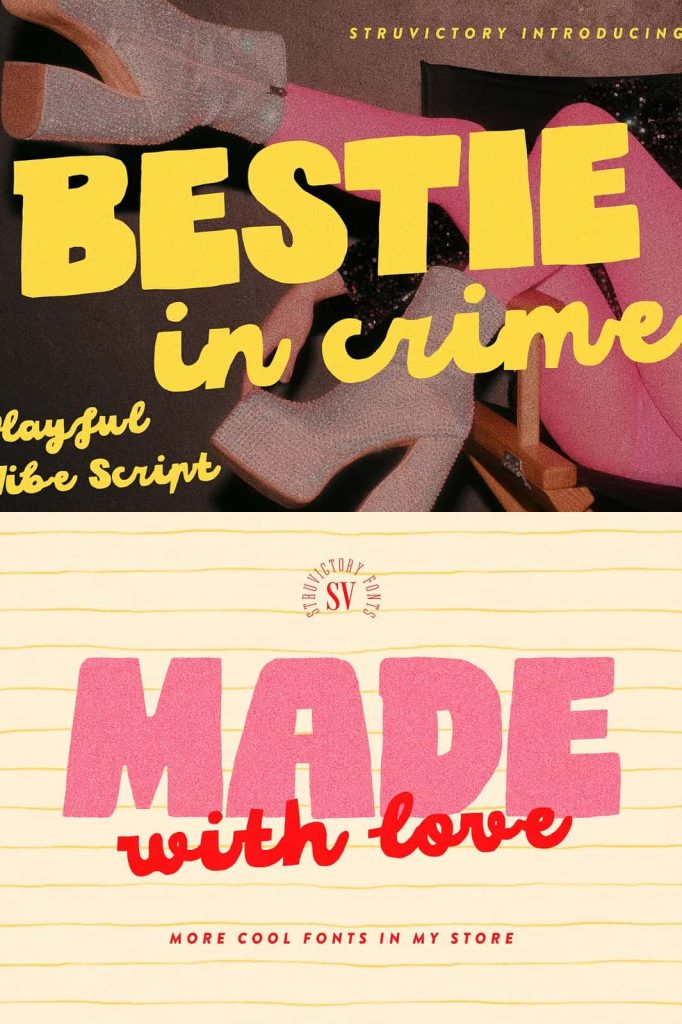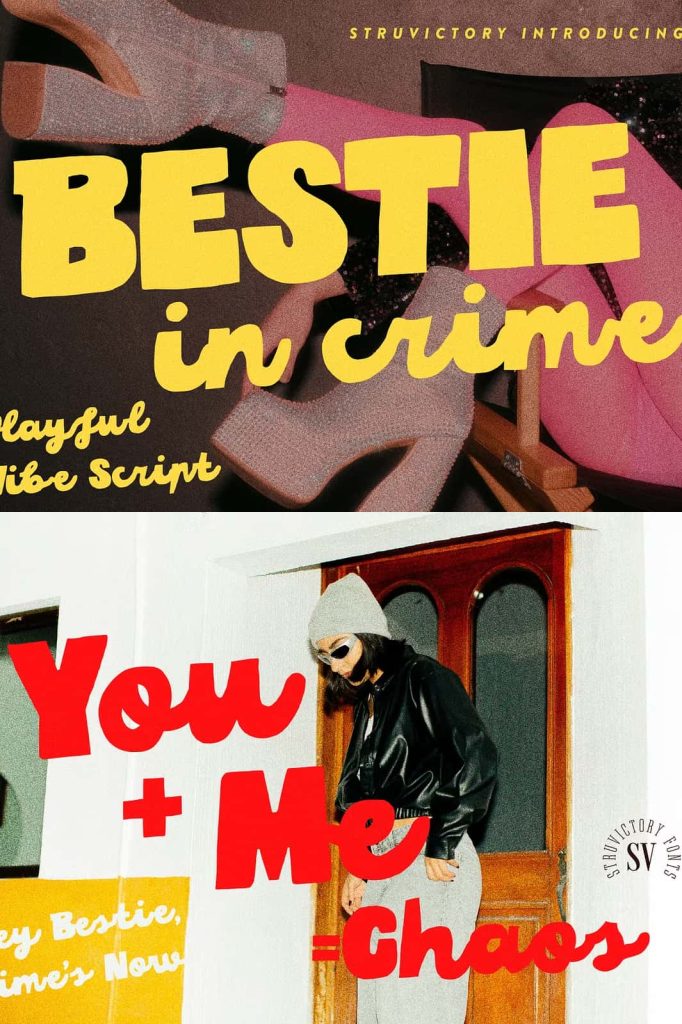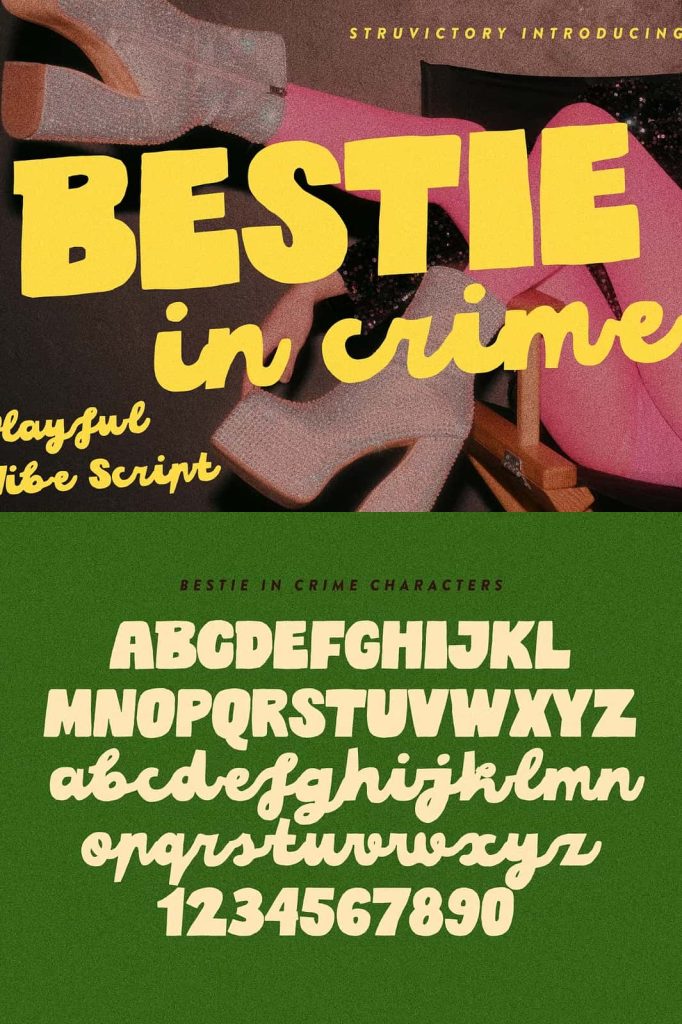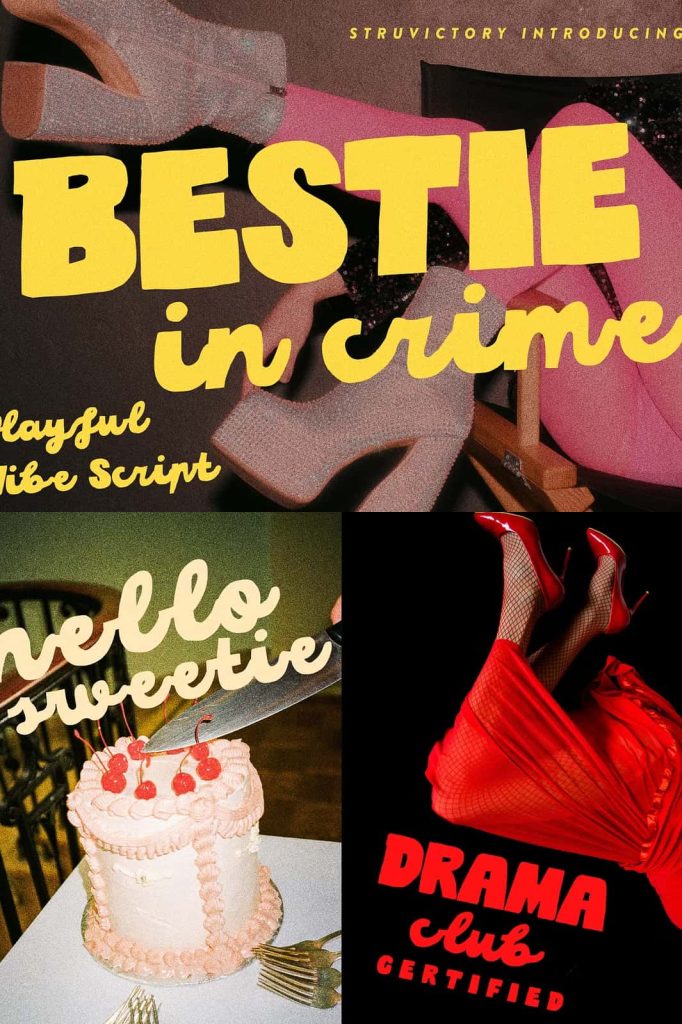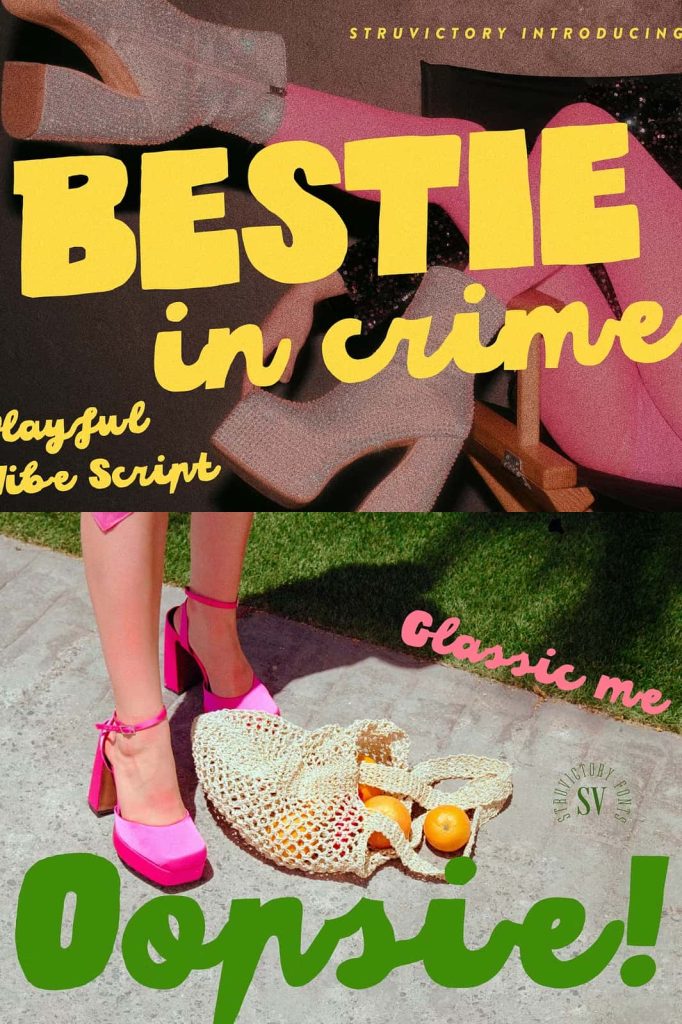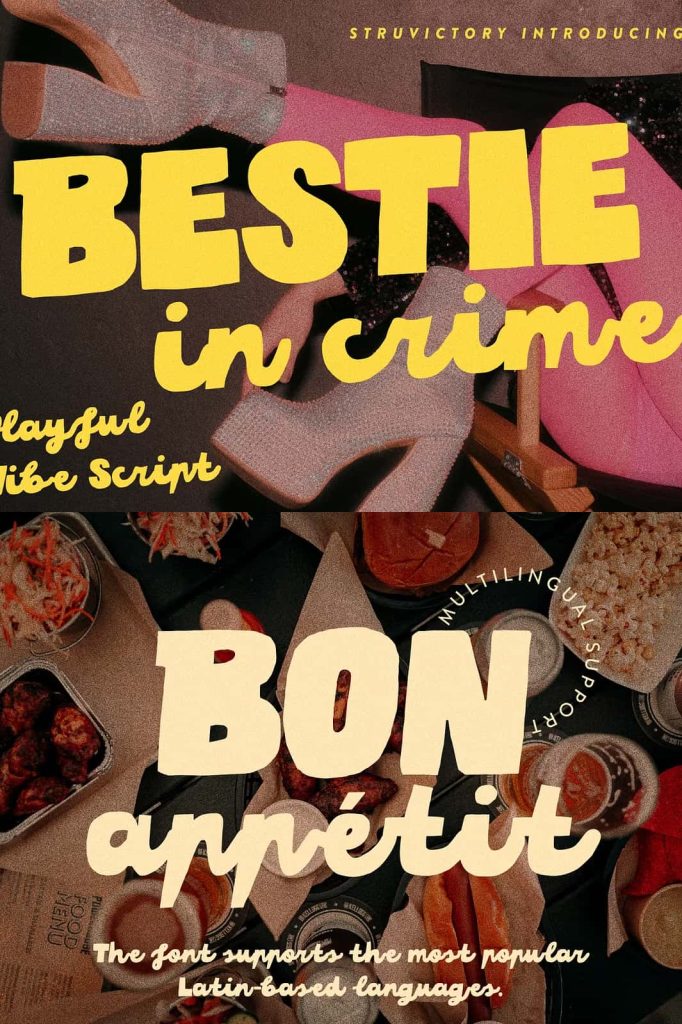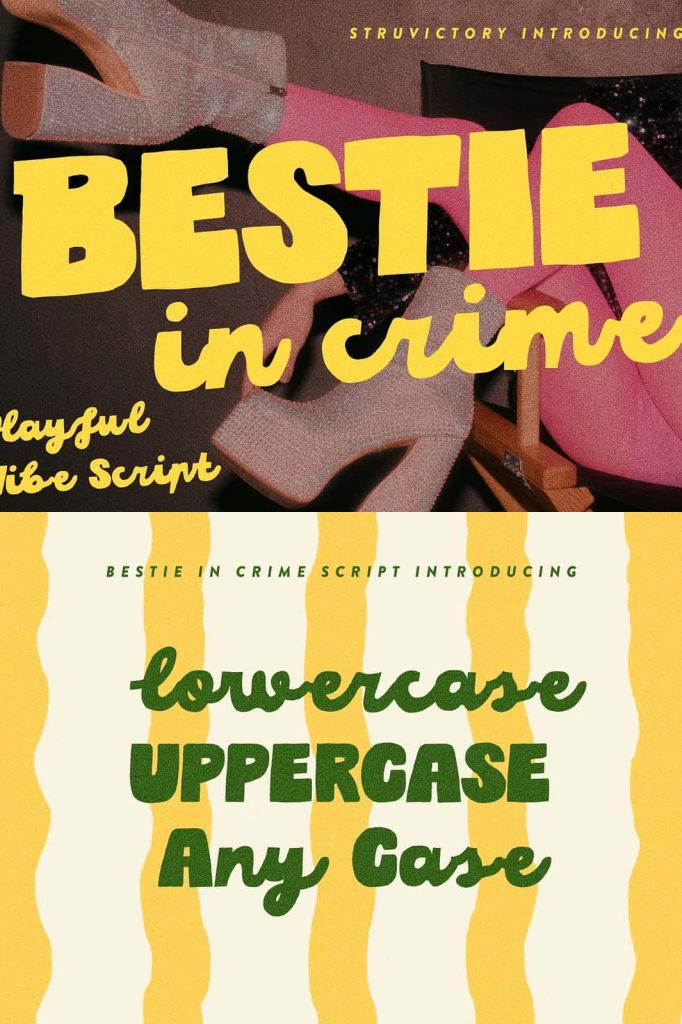
Bestie in Crime Playful Font Duo
A Bold Font Duo Built for Energy and Personality
Bestie in Crime is a bold and playful font duo designed to bring instant personality and movement to your typography. This typeface pairing combines a strong handwritten sans serif uppercase with a lively, flowing lowercase script, creating a dynamic contrast that feels energetic, expressive, and full of attitude. Together, the two styles work in harmony to produce designs that feel fun, confident, and visually engaging.
Rather than relying on a single typographic voice, Bestie in Crime thrives on contrast. The uppercase sans serif delivers structure and impact, while the script introduces motion and charm. This combination allows designers to build strong typographic hierarchies while maintaining a casual, friendly tone that instantly connects with audiences.
Handwritten Sans Serif Meets Flowing Script
The uppercase handwritten sans serif in Bestie in Crime features chunky forms and confident strokes that command attention. Its bold construction ensures readability while delivering a handcrafted feel that keeps designs approachable. This style works exceptionally well for headlines, titles, and key messaging where clarity and impact matter most.
The lowercase script adds a playful counterbalance with smooth curves and natural flow. Its lively movement softens the overall look, introducing warmth and personality into the composition. When used together, the two styles create a visual rhythm that feels spontaneous and expressive rather than rigid or predictable.
Designed to Create Contrast That Feels Natural
Bestie in Crime was designed to make mixing styles effortless. The sans serif and script complement each other through consistent proportions and thoughtful spacing. This allows designers to alternate between bold statements and expressive accents without disrupting visual harmony.
The result is typography that feels handcrafted yet cohesive. Designers can easily highlight keywords, emphasize emotions, or guide the viewer’s eye through playful contrast that feels intentional and well-balanced.
Perfect for Fun, Casual, and Eye-Catching Designs
Bestie in Crime excels in projects that require a fun and casual vibe. Its bold personality makes it ideal for cafe menus, where clarity and charm must work together to engage customers. The font duo also performs exceptionally well in poster designs, allowing messages to stand out in busy visual environments.
Event invitations benefit from the font’s playful tone, which helps set an energetic and welcoming mood. Whether promoting a party, pop-up, or community gathering, Bestie in Crime communicates excitement and personality through its expressive forms.
Made for Packaging, Merch, and Social Media
Bestie in Crime shines in product packaging and merchandise design. Its chunky letterforms and handwritten charm help products feel friendly, approachable, and memorable. This makes it especially effective for lifestyle goods, handmade products, and creative brands looking to stand out on shelves.
On social media, the font duo captures attention quickly. Its bold contrast and casual energy translate well to digital platforms where visuals must compete for attention. Designers can use Bestie in Crime to create posts, stories, and promotional graphics that feel fresh and engaging.
A Font Duo with Attitude and Versatility
Bestie in Crime brings attitude into every design without sacrificing usability. Whether you are creating something loud, cheeky, or sweet, this font duo adapts effortlessly to your creative direction. Its playful nature encourages experimentation while maintaining clear communication.
The font supports both digital and print applications, making it a versatile choice for modern designers. From menus and posters to packaging and online content, Bestie in Crime delivers consistent performance and strong visual impact.
A Go-To Choice for Designers Who Want Personality
Bestie in Crime is more than a font duo; it is a creative tool for expressive storytelling. Its bold contrast, handwritten texture, and lively movement give designers the freedom to create typography that feels human and full of life.
By choosing Bestie in Crime, designers gain a playful font duo that adds confidence, charm, and unmistakable personality to every project. It transforms ordinary text into expressive design, helping brands and creatives communicate with energy, warmth, and a rebellious edge.